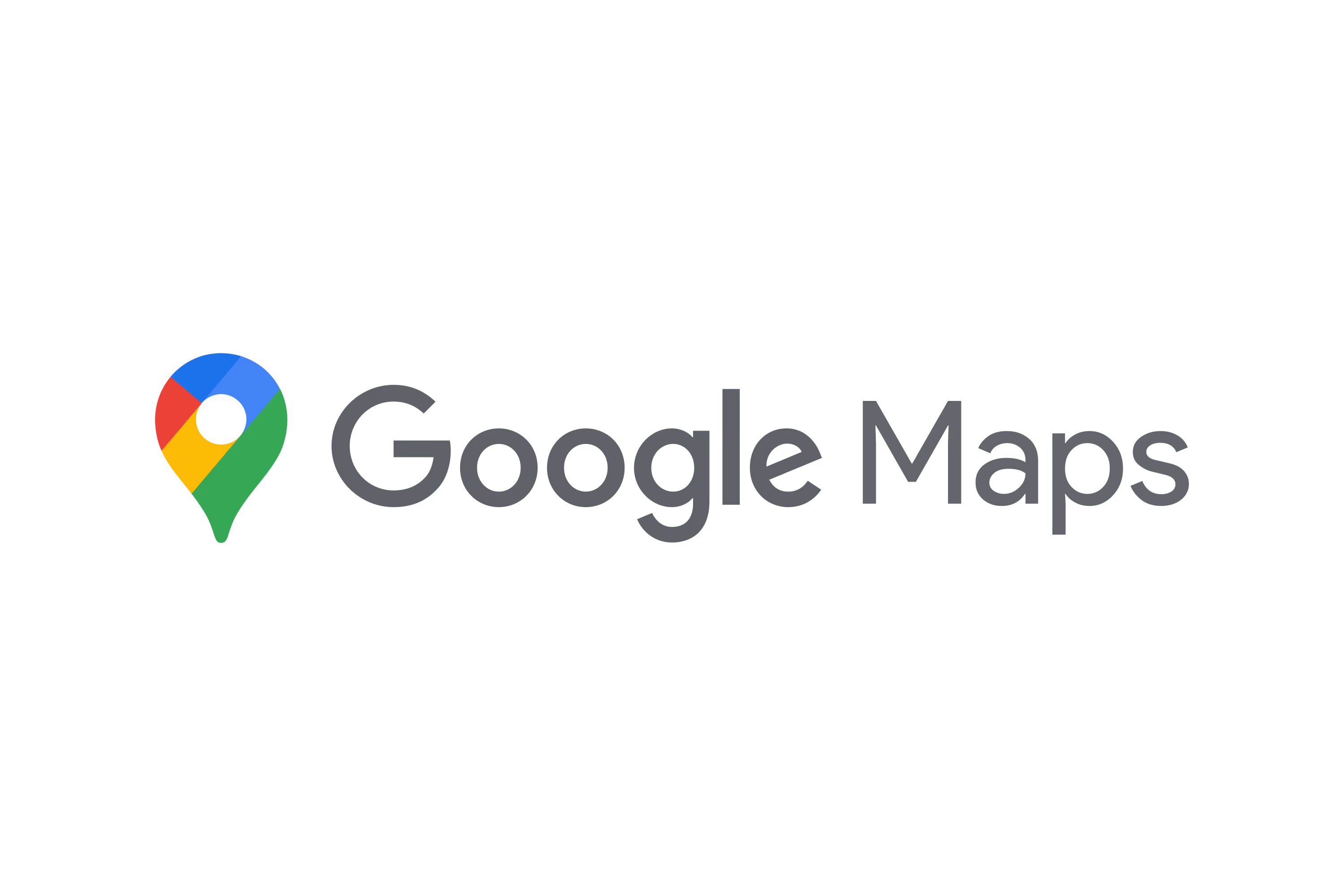
Google Maps Font
Product Sans
Google Maps is a web mapping service developed by Google. It offers satellite imagery, aerial photography, street maps, 360° interactive panoramic views of streets, real-time traffic conditions, and route planning for traveling by foot, car, bicycle and air, or public transportation. The Google Maps logo font is Product Sans, a geometric sans serif typeface developed in-house by Google. Product Sans features clean, rounded letterforms with even stroke widths and open shapes. The design feels modern, simple, and highly legible, which aligns with Google’s minimalist brand identity. In the Google Maps wordmark, Product Sans is customized slightly to fit the overall Google branding system. The soft curves and balanced proportions make the Google Maps font clear and friendly while maintaining a professional appearance.